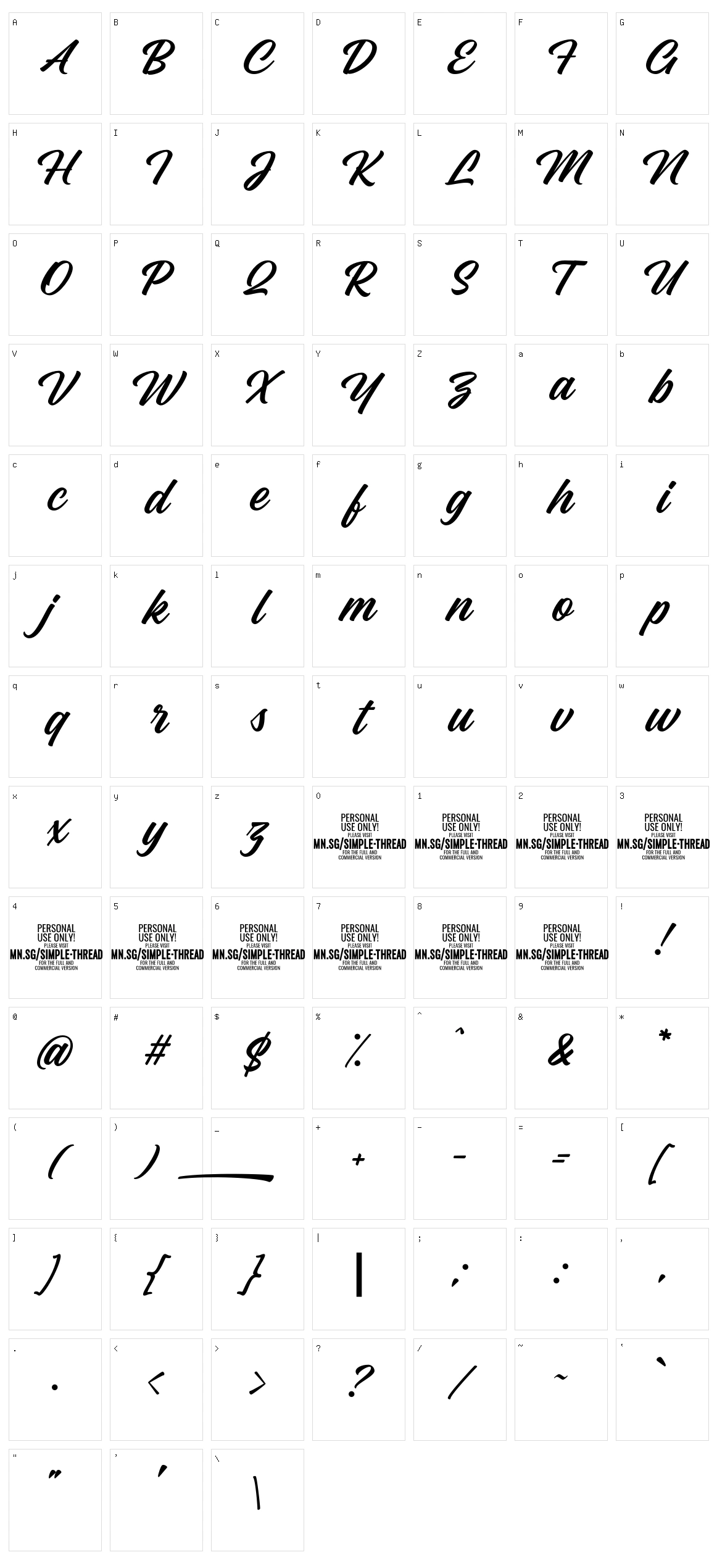
Simple Thread is a beautifully bold script typeface.
Drawn and created between 2020 to 2022, this logotype lettering has a distinct style and a strong personality. It has an optimistic expression and a controlled but vivid movement, tailored for a cool and modern graphic.
Use underscore _ anywhere in a word to make an underline.
Example: Love_letter
Use multiple underscores to make different swashes.
Example: Base_____ball
Use numbersign # after any letter to make a swash.
Example: Hello# Welcome#
The typeface family consist of Regular and Italic.
The font is built with advanced OpenType functionality and has a guaranteed top-notch quality, containing stylistic and contextual alternates, ligatures and more features; all to give you full control and customizability.
It has extensive lingual support, covering all Latin-based languages, from Northern Europe to South Africa, from America to South-East Asia.
It contains all characters and symbols you'll ever need, including all punctuation and numbers.